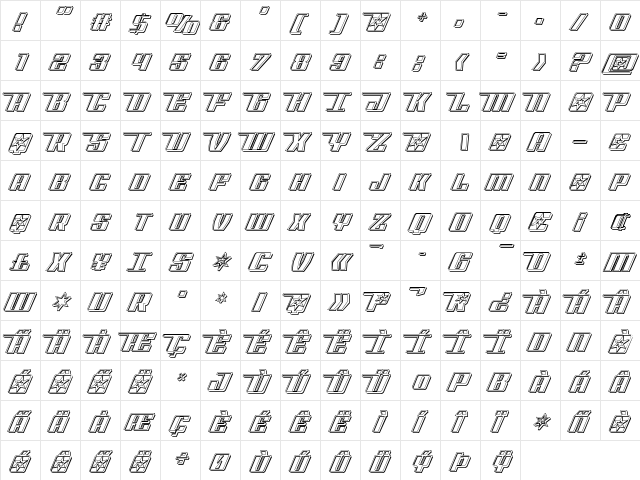
Rocket Pop Engraved Regular
Design Context for Rocket Pop Engraved Typeface
Rocket Pop Engraved brings ornamental detail and strong personality to headlines and identities, where visual impact matters more than quiet functionality.
Font Pairing: Pair with a clean neutral sans-serif for body copy to let Rocket Pop Engraved's character lead without overwhelming the composition.
Pro Tip: Use Rocket Pop Engraved exclusively at display sizes — it was designed to be seen, not read at length. Let a neutral companion handle body copy.